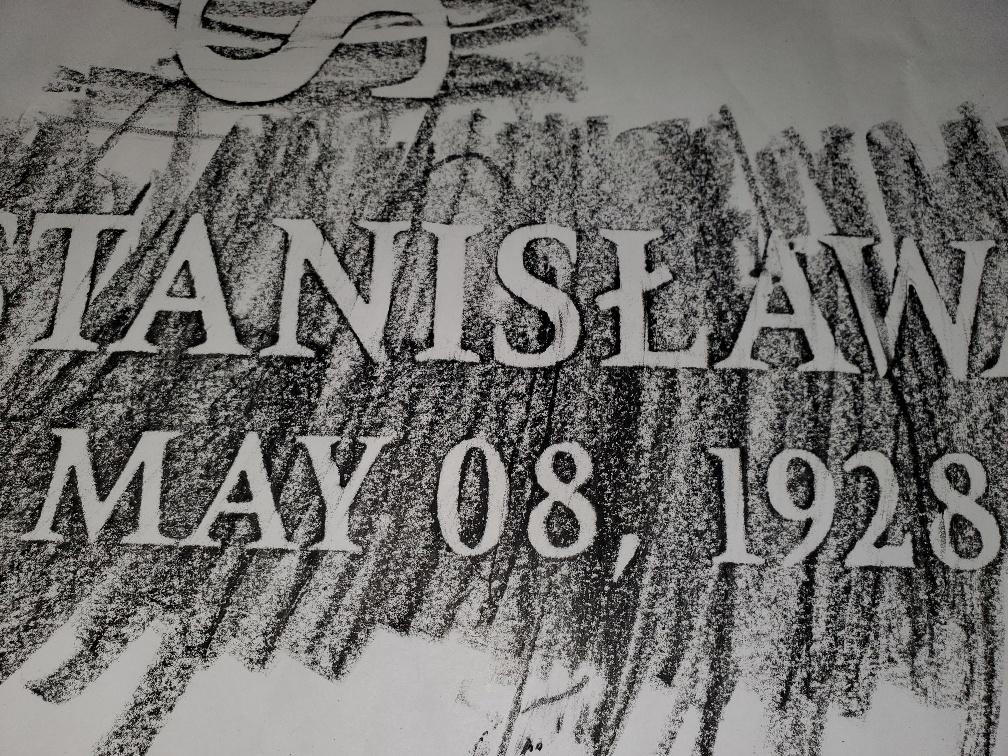
Hello, sorry for the delay. This is a font called Latin 725. It appears that at least some of it may have been manually condensed. There is also another verison called Meridien, and a third called Frutiger Serif. All three were designed by type designer Adrian Frutiger. Additionally, there is a version in Cochran’s Monumental Designer software simply named Latin.
Latin 725